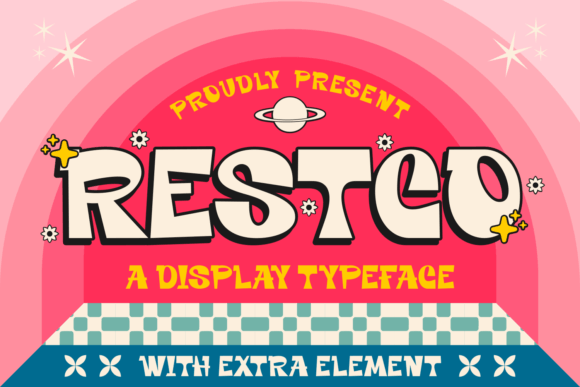
Dive into the realm of creativity and let your designs dance with joy and vitality, courtesy of Restco, the whimsical display font that radiates pure enchantment. Each character is a masterpiece, meticulously crafted with ornate flourishes that instill a sense of whimsical delight. Say goodbye to ordinary and embrace the extraordinary.
Picture this: an invitation adorned with Restco's playful elegance, leaving an unforgettable impression on your guests. Or, imagine your packaging transformed into a work of art, captivating customers with its charming details. Let Restco work its magic, bringing a touch of fancy and fun to every design project. The possibilities are endless; let your imagination run wild and unleash your creative potential.
With Restco's delightful glyphs and swashes at your fingertips, you'll effortlessly create designs that exude personality and charm. The PUA encoding makes accessing these embellishments a breeze, ensuring a seamless and enjoyable experience.
Join the ranks of creative visionaries who have embraced Restco's allure. Let your designs radiate happiness, leaving a lasting impression that speaks volumes about your unique style and artistic flair.